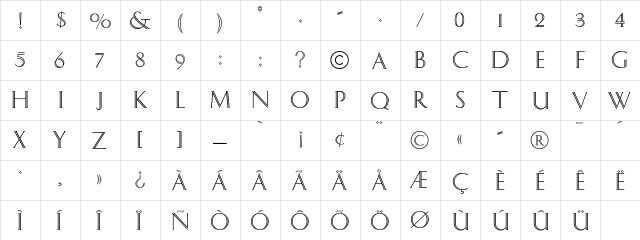
CgDelphian Regular Font Preview
CgDelphian Regular
CgDelphian Regular Font Details
Design Context for CgDelphian Typeface
CgDelphian offers clean, dependable letterforms without strong stylistic allegiance, making it a practical choice for designers who need flexibility.